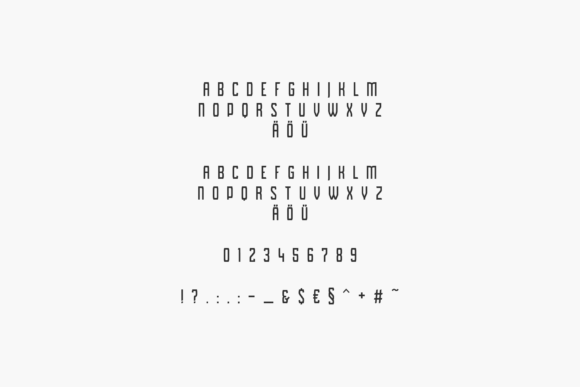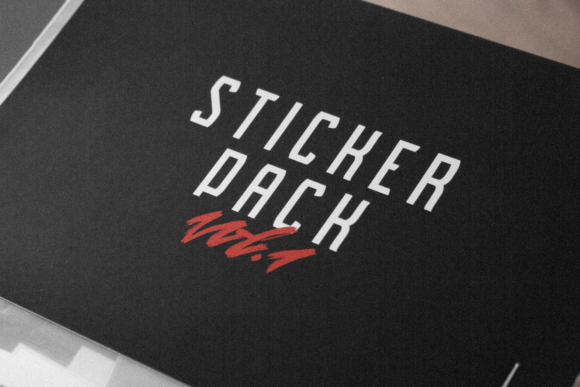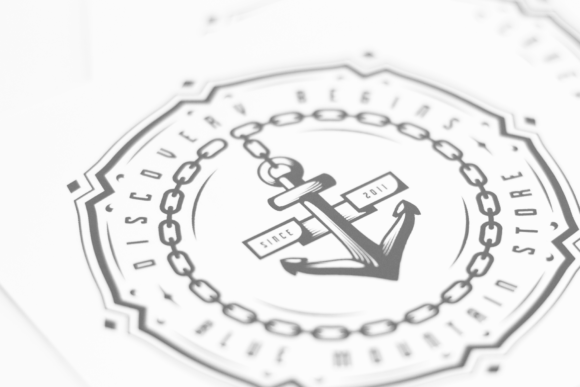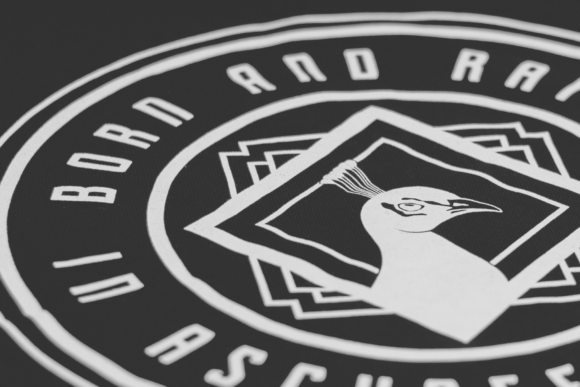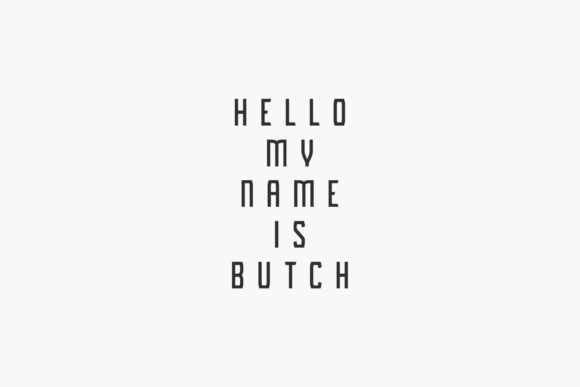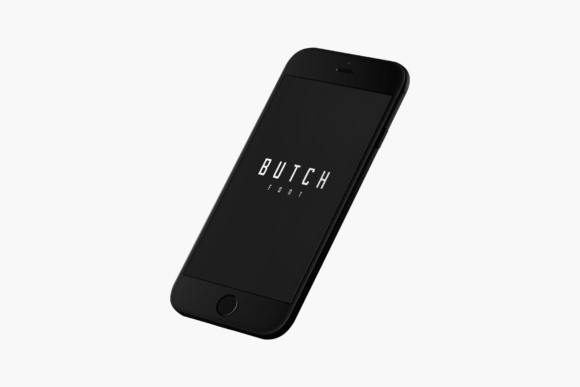
Introducing Butch Font: The Ultimate Urban Typeface
In the world of typography, fonts play a crucial role in conveying messages, expressing personalities, and creating visual identities. For designers and crafters, finding the perfect font can be a daunting task, especially when it comes to creating urban and street wear fashion content. That’s where Butch Font comes in – a unique, clean, and stylish typeface designed specifically for the fashion industry.
What is Butch Font?
Butch Font is a modern, sans-serif font that boasts a distinctive and edgy look. Its clean lines, precise curves, and urban feel make it an ideal choice for designers and crafters looking to create bold and eye-catching designs. Butch Font is specifically designed to blend perfectly into the urban and street wear fashion culture, making it a perfect fit for fashion brands, designers, and enthusiasts.
Key Features of Butch Font
- Unique and Edgy Design: Butch Font features a one-of-a-kind design that sets it apart from other fonts. Its urban feel and clean lines make it perfect for creating bold and eye-catching designs.
- Clean and Precise: Butch Font is designed with precision and attention to detail, ensuring that it looks great in various design applications, from apparel design to advertising.
- Versatile: Butch Font is a versatile typeface that can be used in a variety of design projects, including logos, branding, advertising, and more.
Why Choose Butch Font?
Butch Font is an excellent choice for designers and crafters looking to create urban and street wear fashion content. Here are some reasons why:
- Perfect for Fashion Brands: Butch Font is designed specifically for the fashion industry, making it an ideal choice for fashion brands looking to create a bold and eye-catching visual identity.
- Great for Apparel Design: Butch Font is perfect for apparel design, allowing designers to create stylish and urban-looking clothing and accessories.
- Ideal for Advertising: Butch Font’s unique and edgy design makes it perfect for advertising campaigns, helping brands to stand out in a crowded market.
Butch Font is a unique and stylish typeface that is perfect for designers and crafters looking to create urban and street wear fashion content. Its clean lines, precise curves, and urban feel make it an ideal choice for fashion brands, designers, and enthusiasts. With its versatility, edgy design, and precision, Butch Font is sure to become a go-to font for anyone looking to create bold and eye-catching designs.